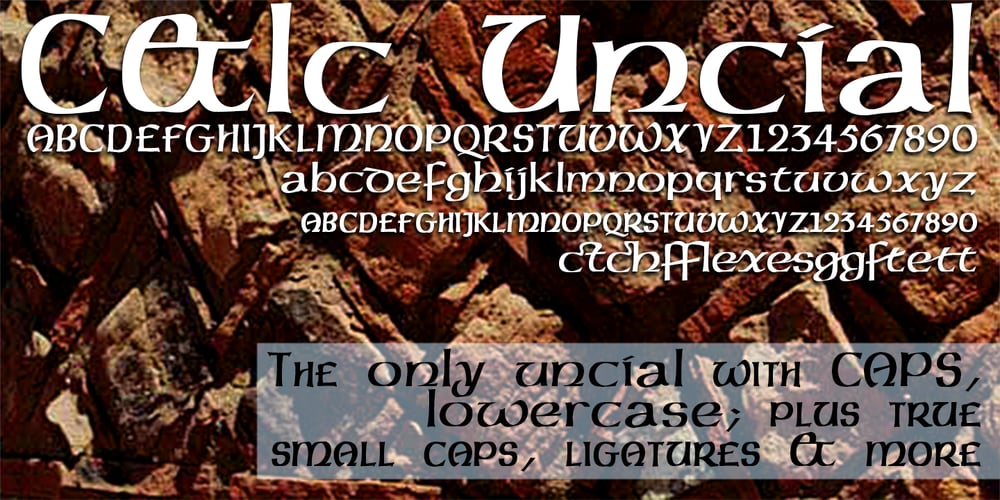
C&lc Uncial Pro Font Family was designed by David Bergsland and published by Hackberry Font Foundry. C&lc Uncial Pro contains 1 styles and family package options. This is a radically modernized uncial with many OpenType features and 415 characters: Caps, lower case, small caps, numerators, denominators, accents characters and so on. There are 21 ligatures. It is an experimental look at medieval writing for the 21st century.